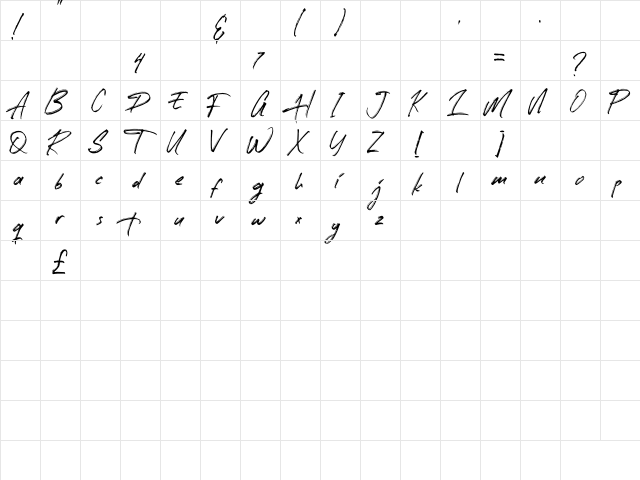
Street Photography Regular
| Designer | Sya'dan Ismail Rosyad |
Design Context for Street Photography Typeface
Street Photography is a composed and adaptable typeface that performs quietly and consistently across a wide range of design contexts.